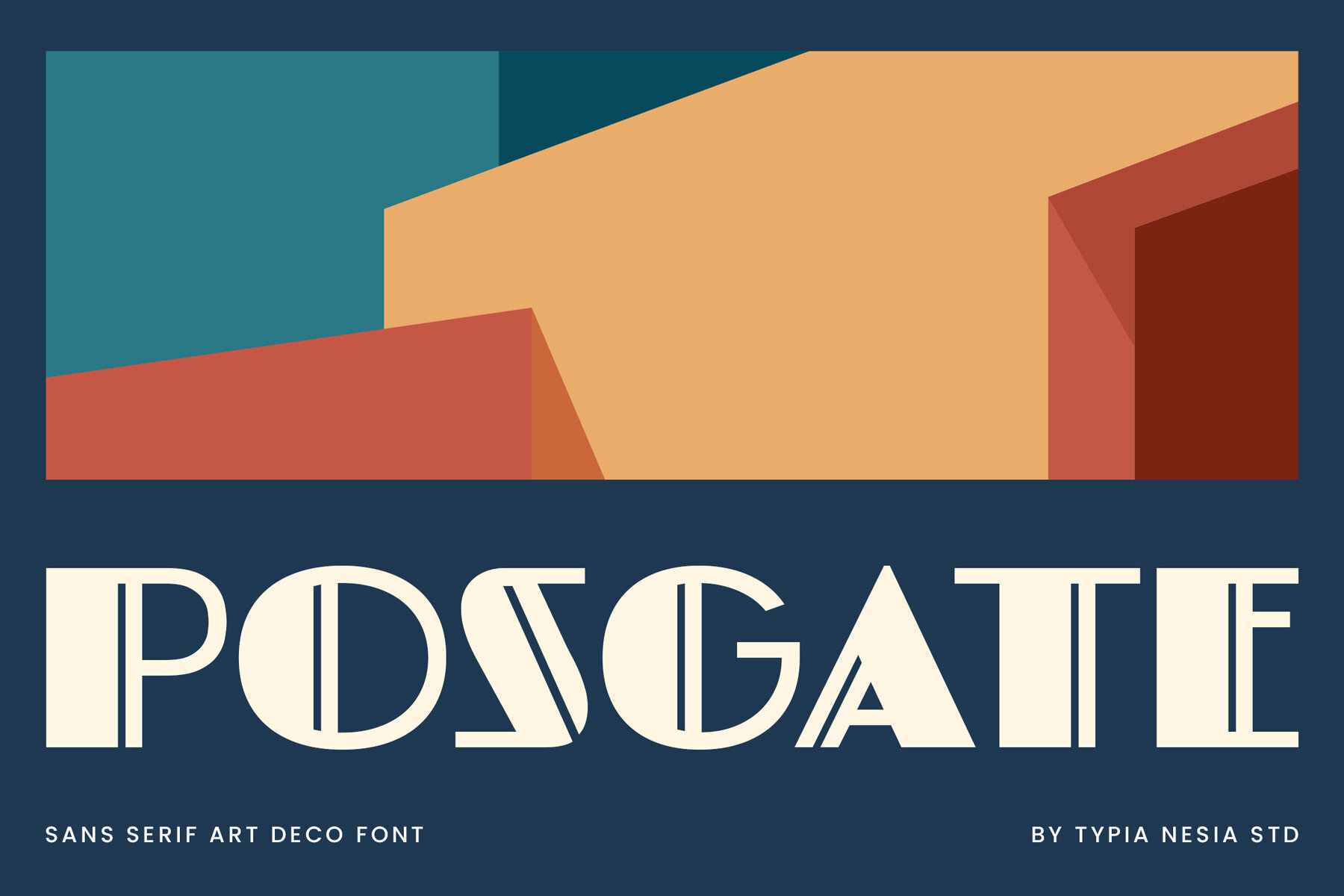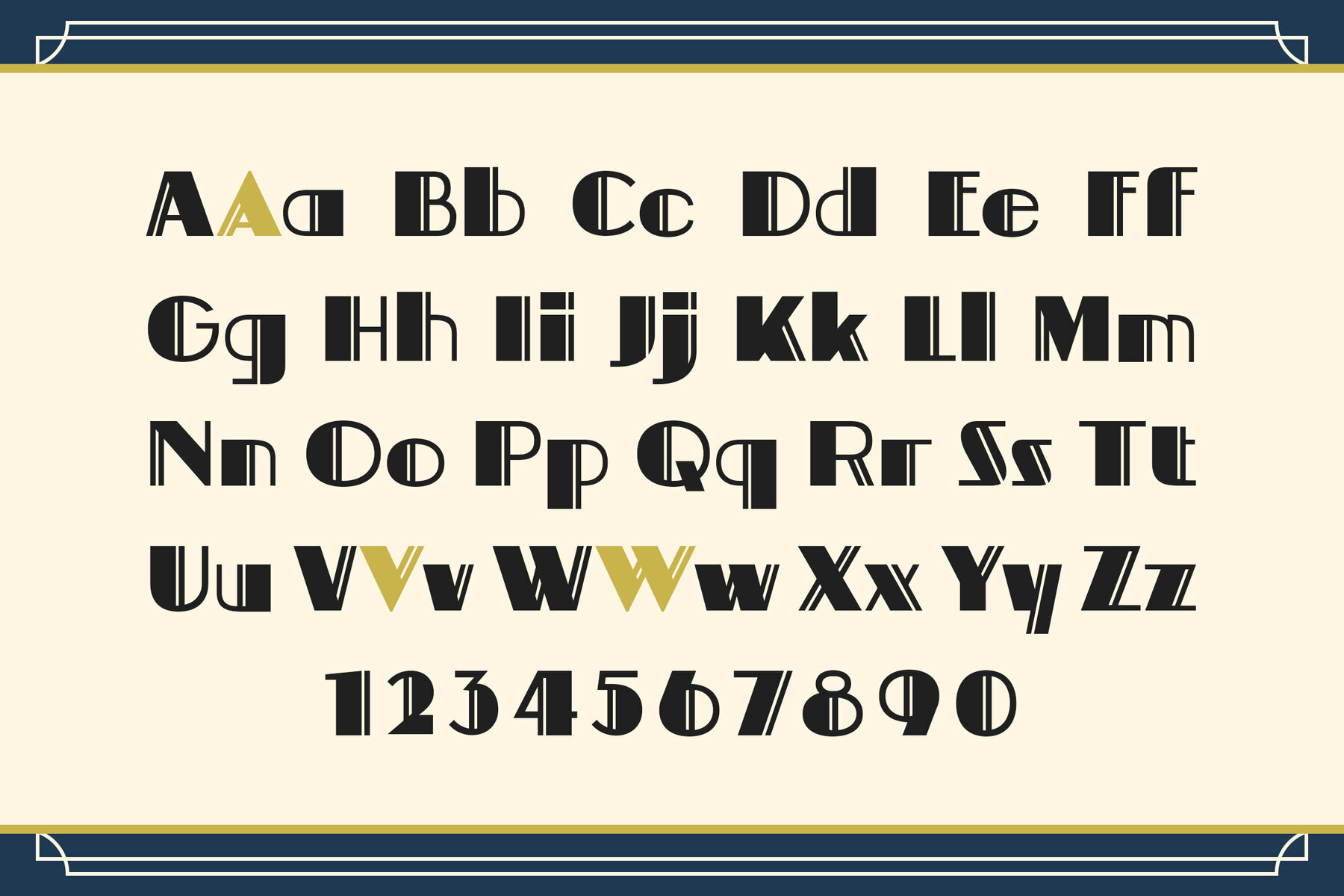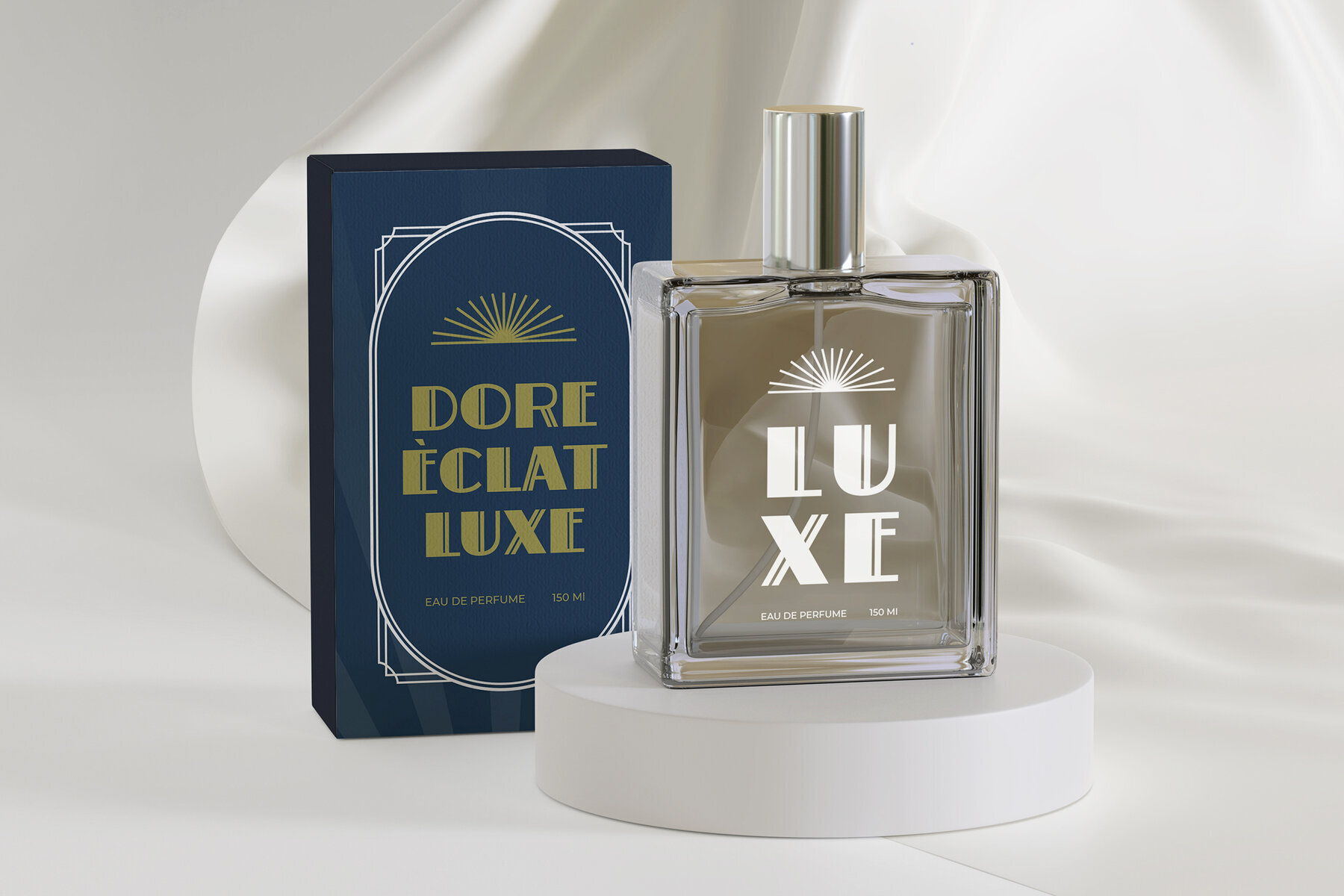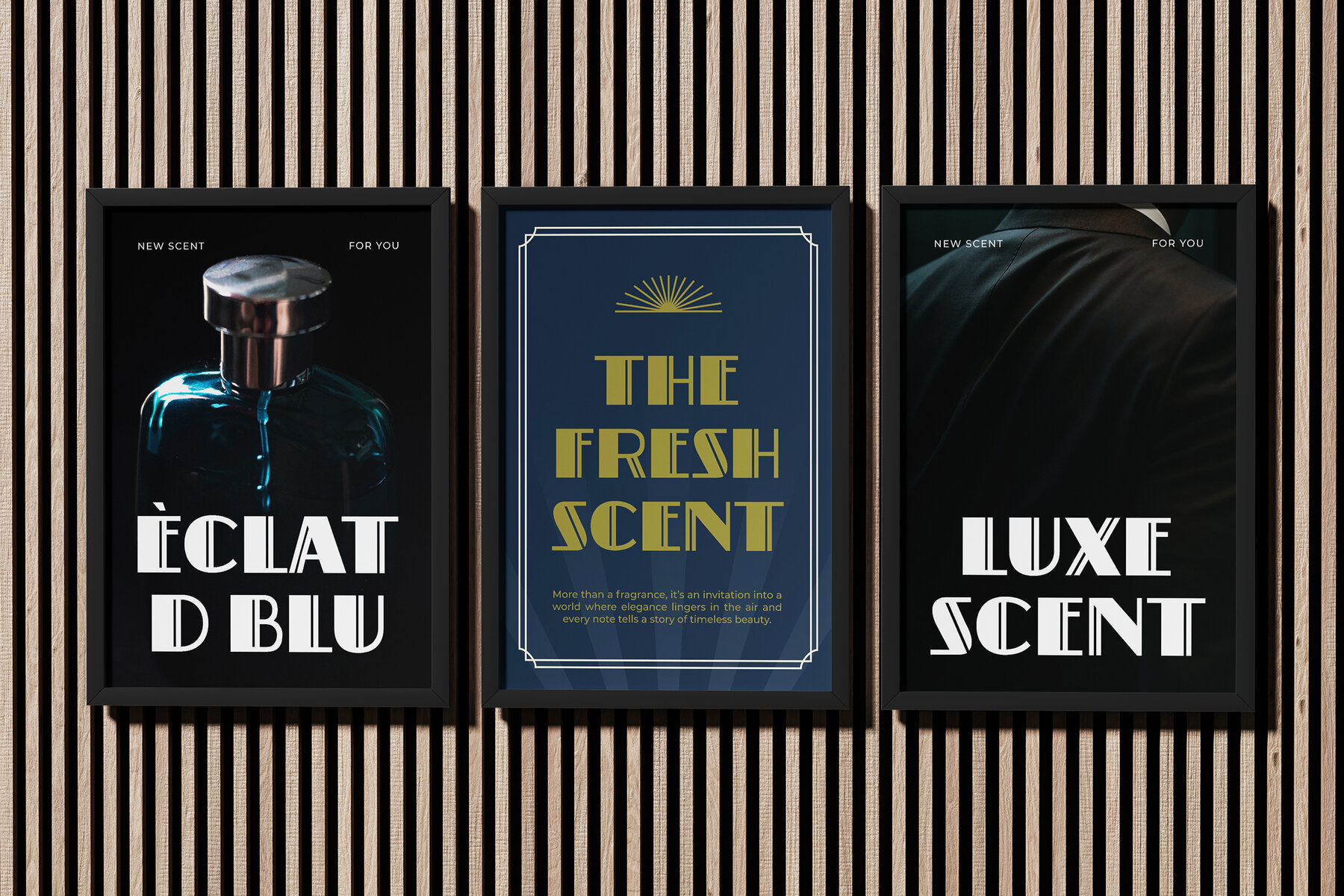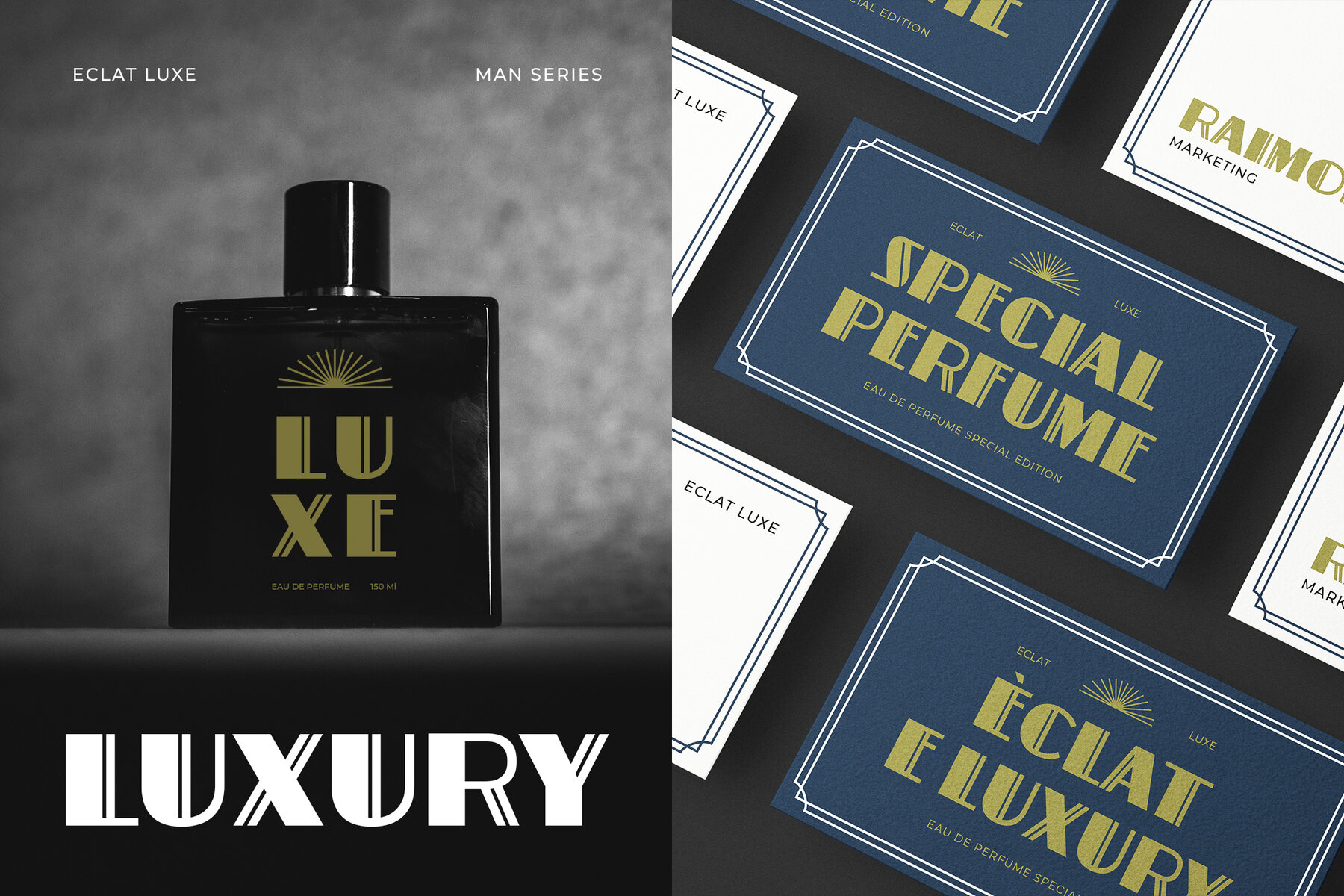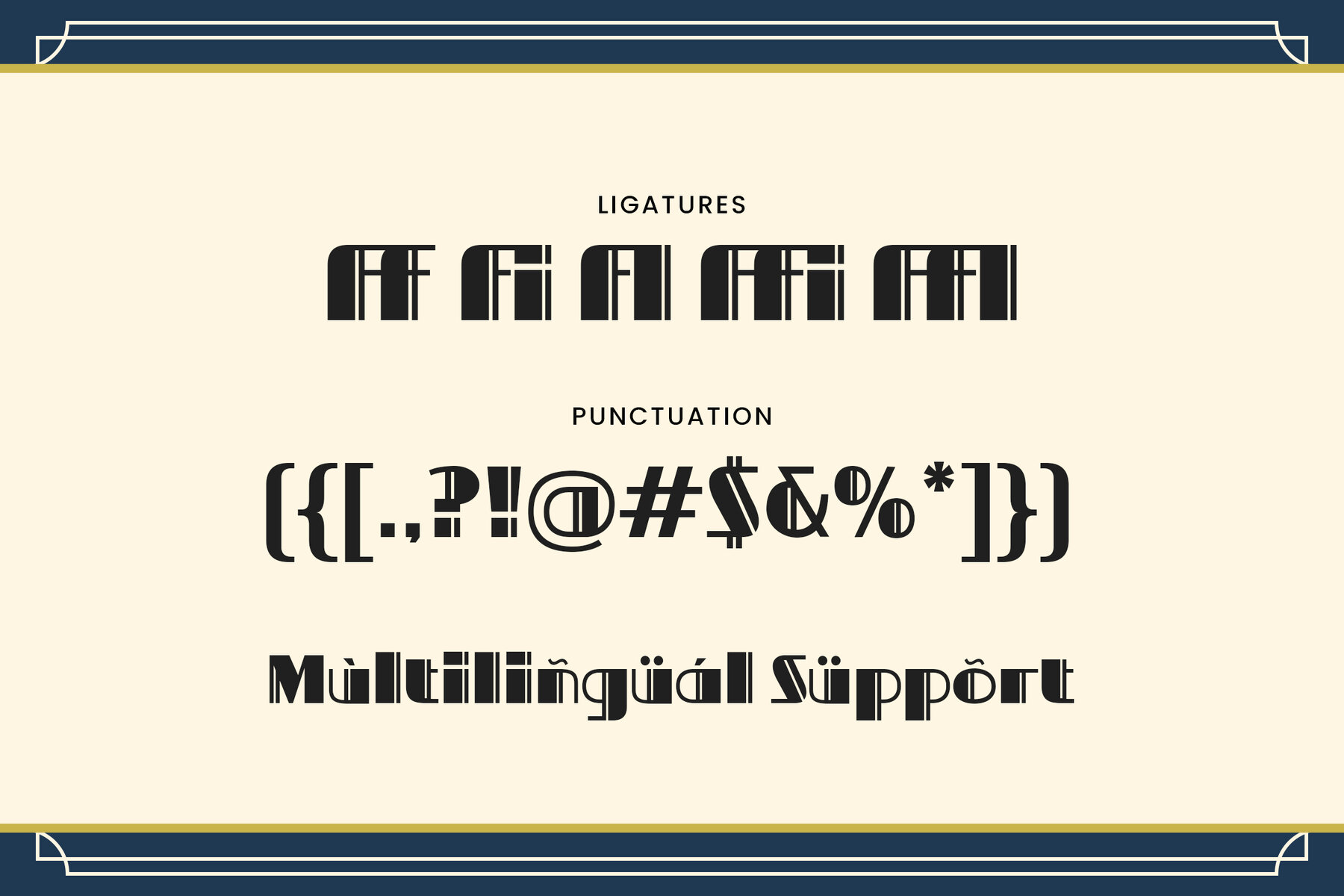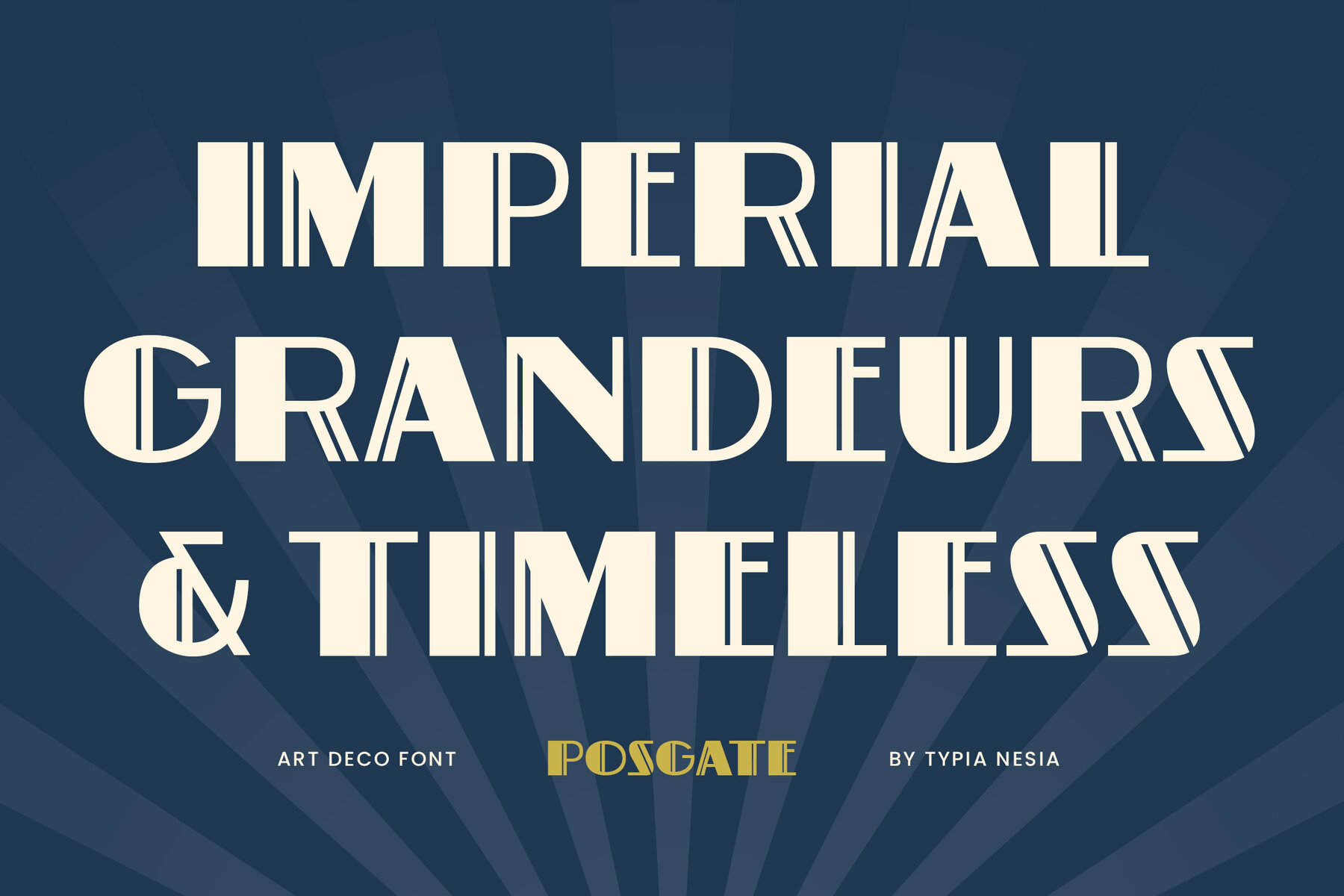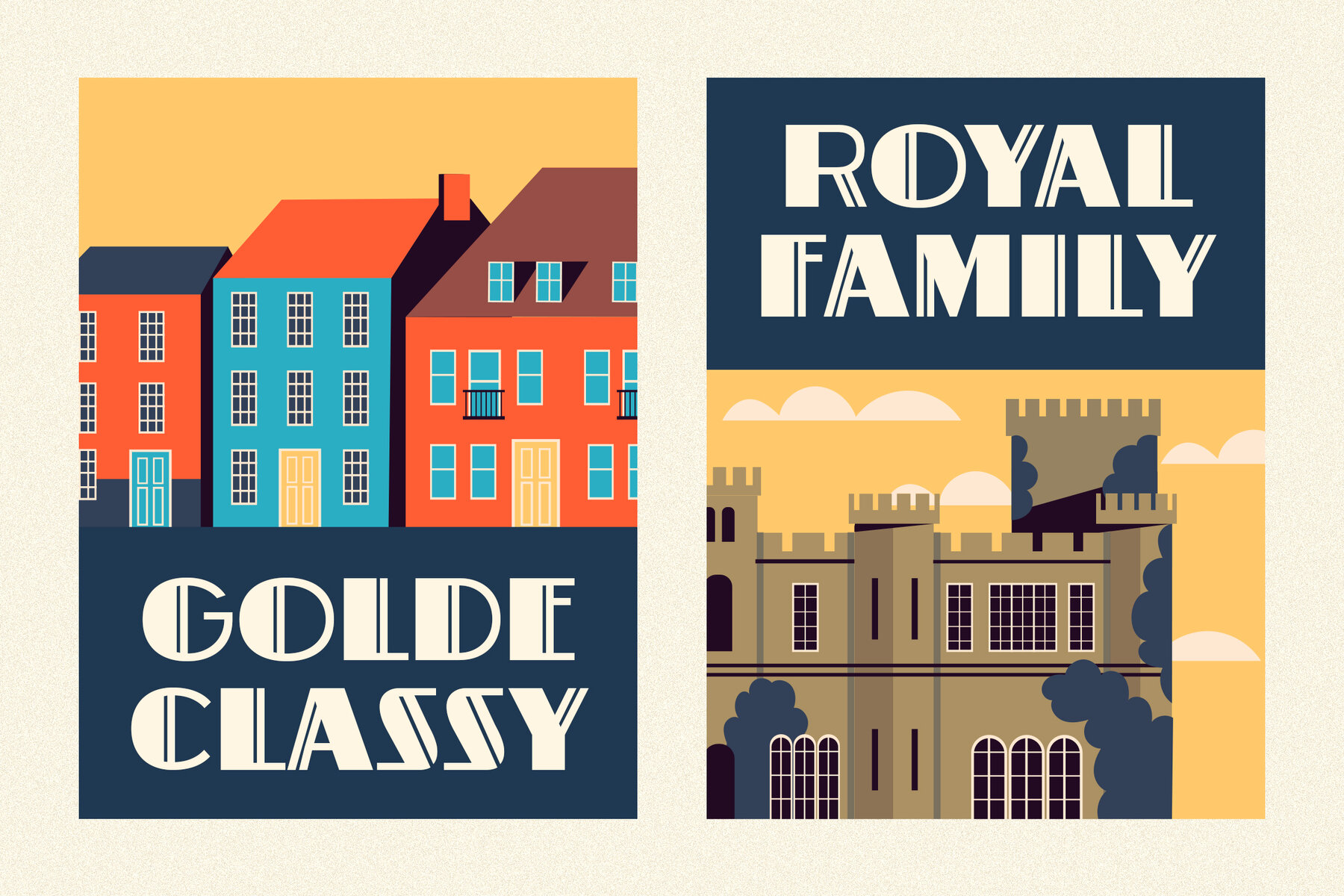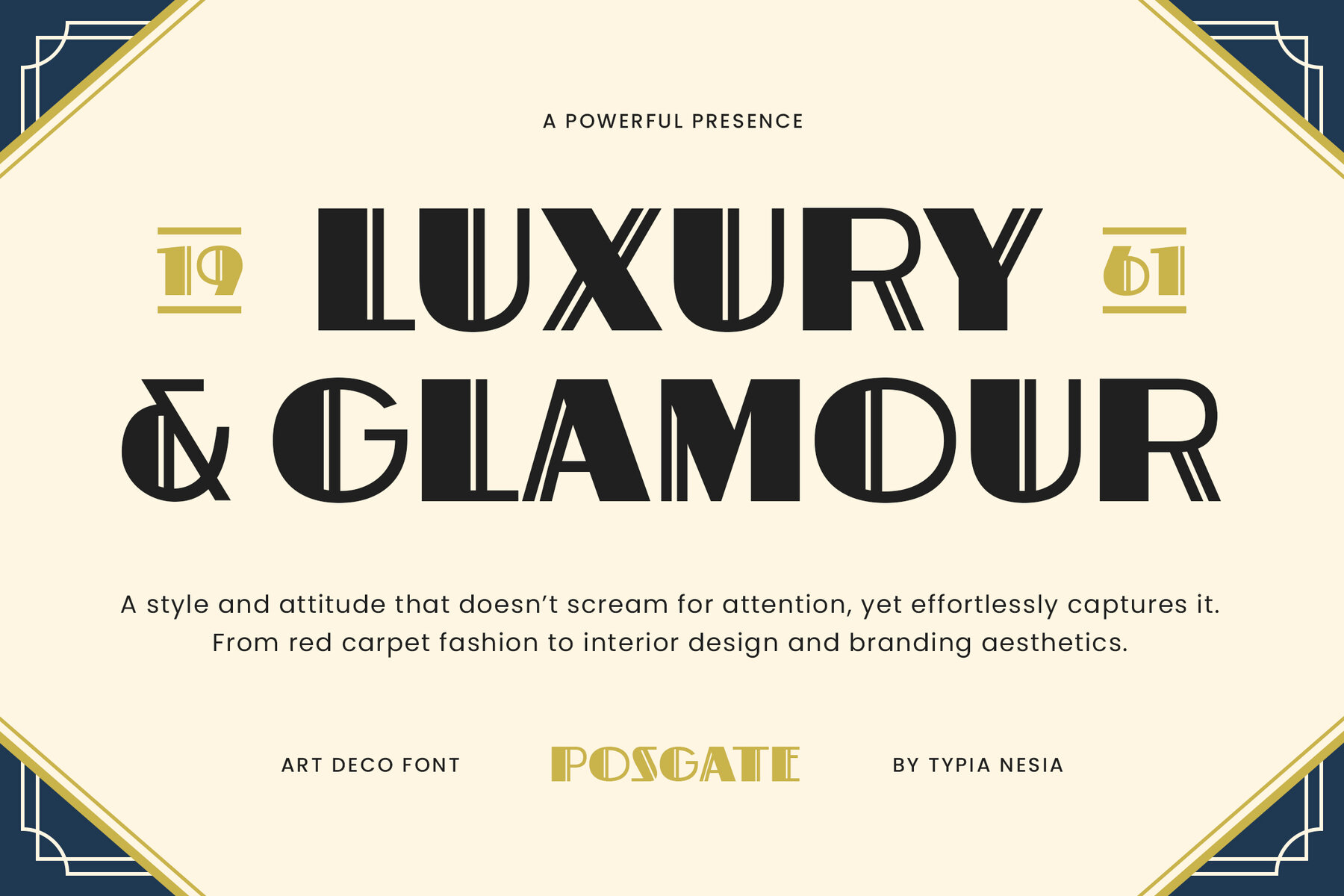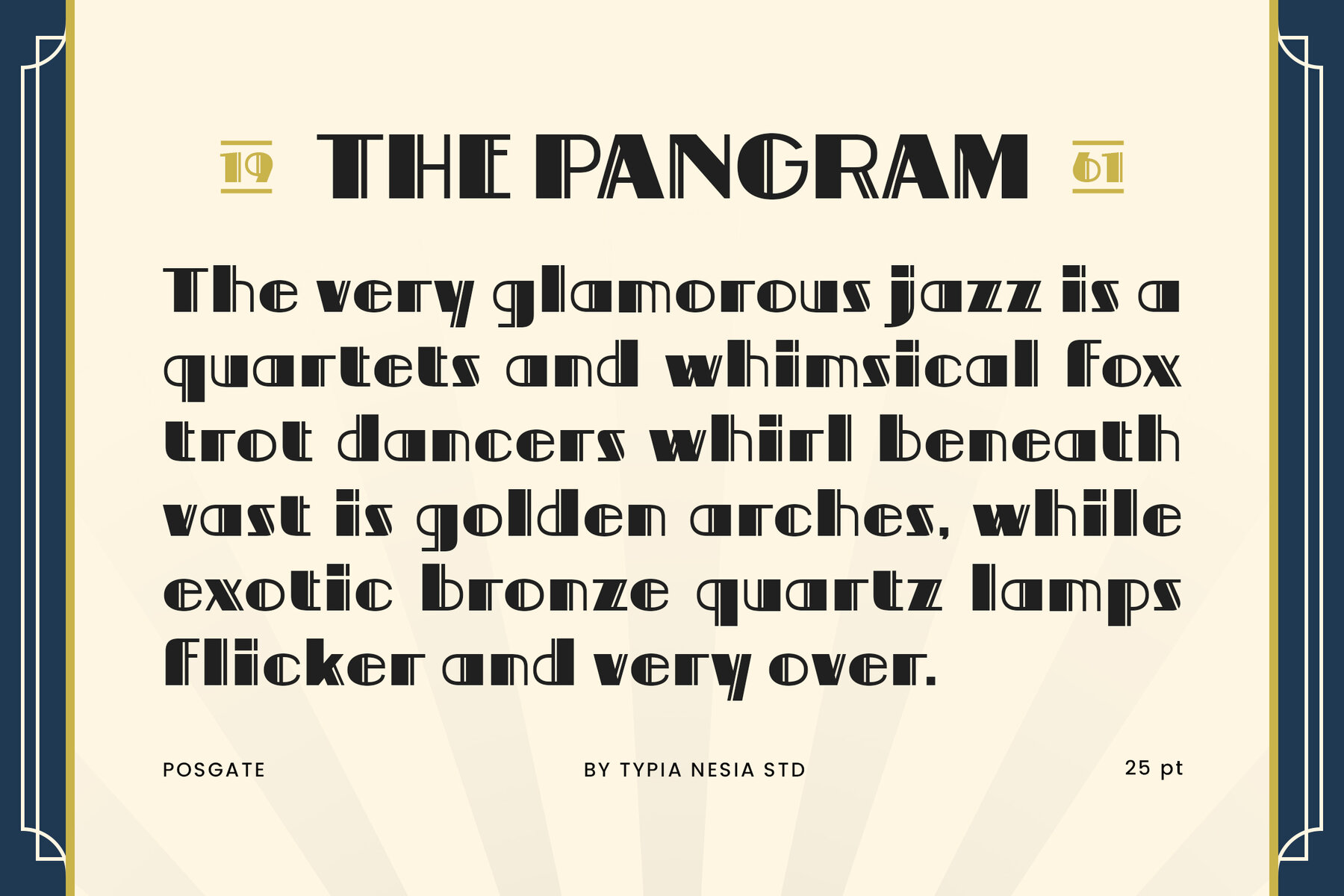
Posgate Font
Posgate Regular
Reflecting the quintessential allure of the Art Deco period, Postgate offers a bold and sophisticated display typeface. This modern take on geometric sans design encapsulates the iconic symmetry of the 1920s, making it an exquisite choice for brand logos, upscale packaging, and elegant posters. Perfectly suited for museum exhibitions or architectural branding, Postgate appeals to those seeking a blend of vintage sophistication and contemporary flair. Postgate’s stylized characters, marked by striking parallel lines, ensure any project is both grand and memorable. This typeface is ideal for endeavors that aspire to capture a sense of luxury and timelessness.Postgate: Art Deco Sans for Timeless Luxury